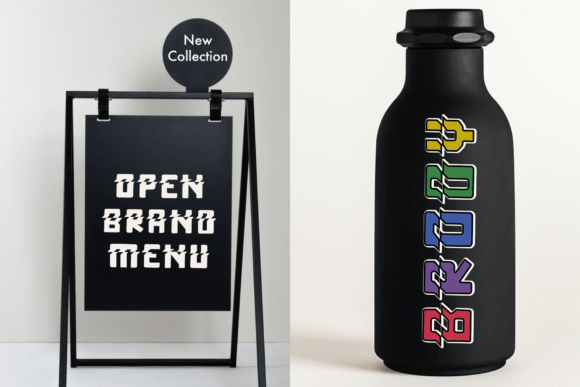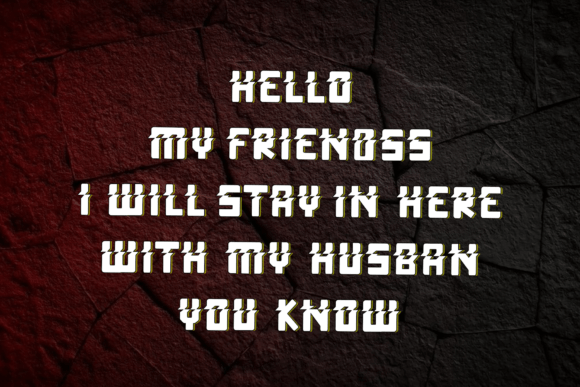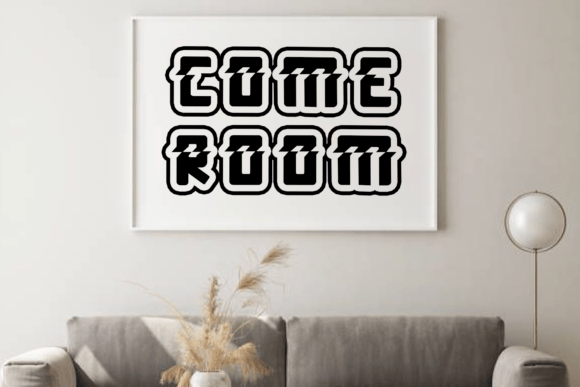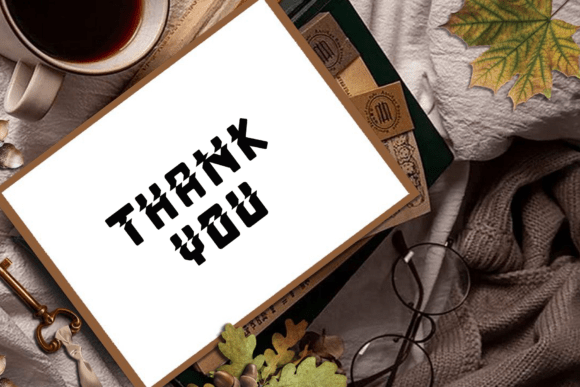
Introduction to Smart Electric Font
Smart Electric is a high-octane display font designed to evoke a sense of speed, power, and futuristic technology.
It features a heavy, block-like structure with a unique โglitchโ or โmotion blurโ effect, where horizontal slices through the letters create a feeling of rapid electronic movement The letterforms are wide and authoritative, with sharp, aggressive terminals that align perfectly with automotive and high-tech aesthetics.
Key Features of Smart Electric Font